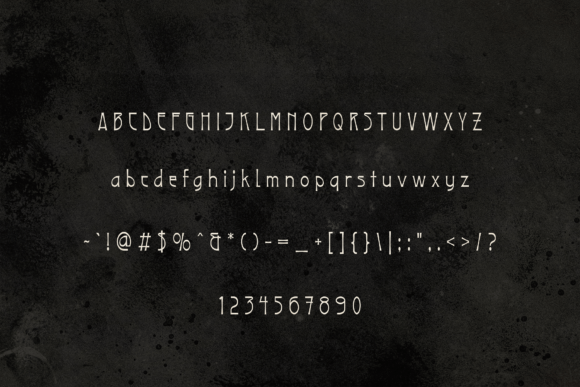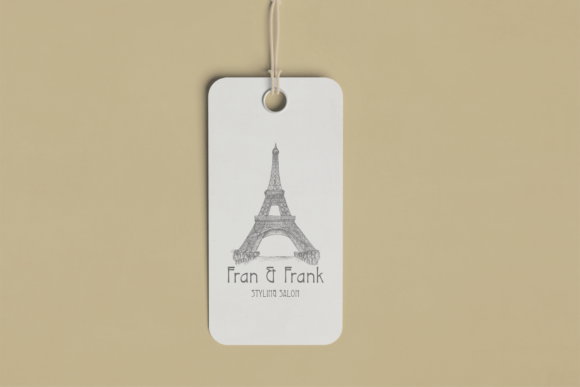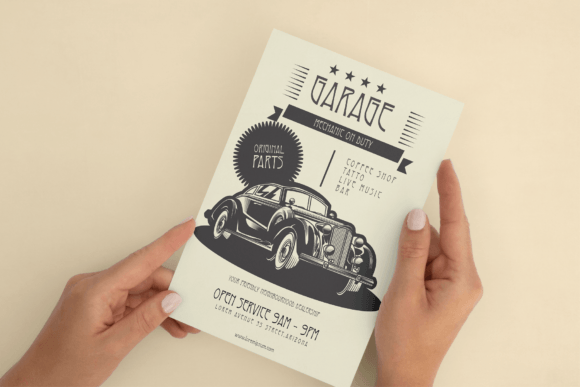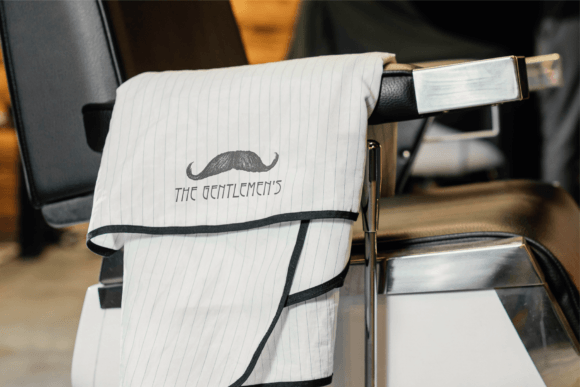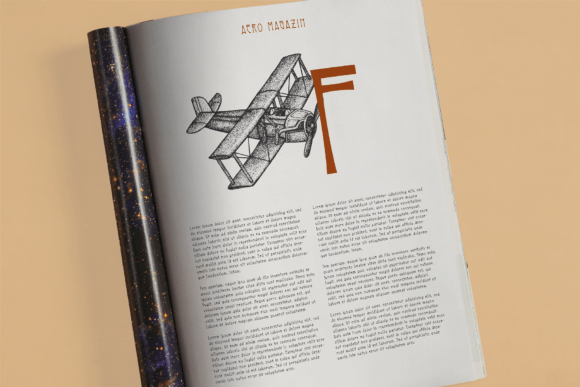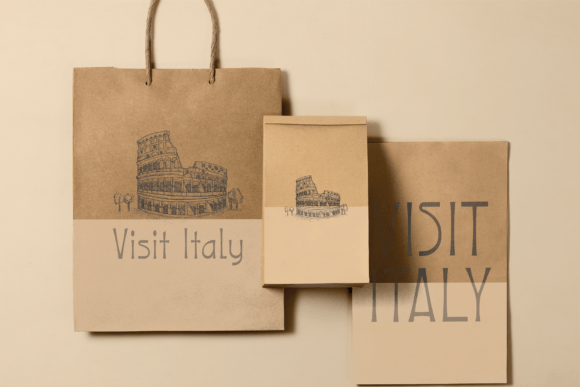
Introduction to Forma Focus Font
Introducing Forma Focus, a stunning typeface that transports you back to the elegance and sophistication of the early 1900s.
With its vintage charm and timeless beauty, Forma Focus is the perfect blend of historical allure and contemporary design, making it ideal for any project that requires a touch of classic refinement Forma Focus is more than just a typeface; itโs a journey back to a time of elegance and grace.
Key Features of Forma Focus Font
Why Choose Forma Focus Font?
Forma Focus Font offers exceptional quality and versatility, making it a valuable addition to your design toolkit. Whether you’re creating for personal projects or commercial use, Forma Focus Font delivers professional results.